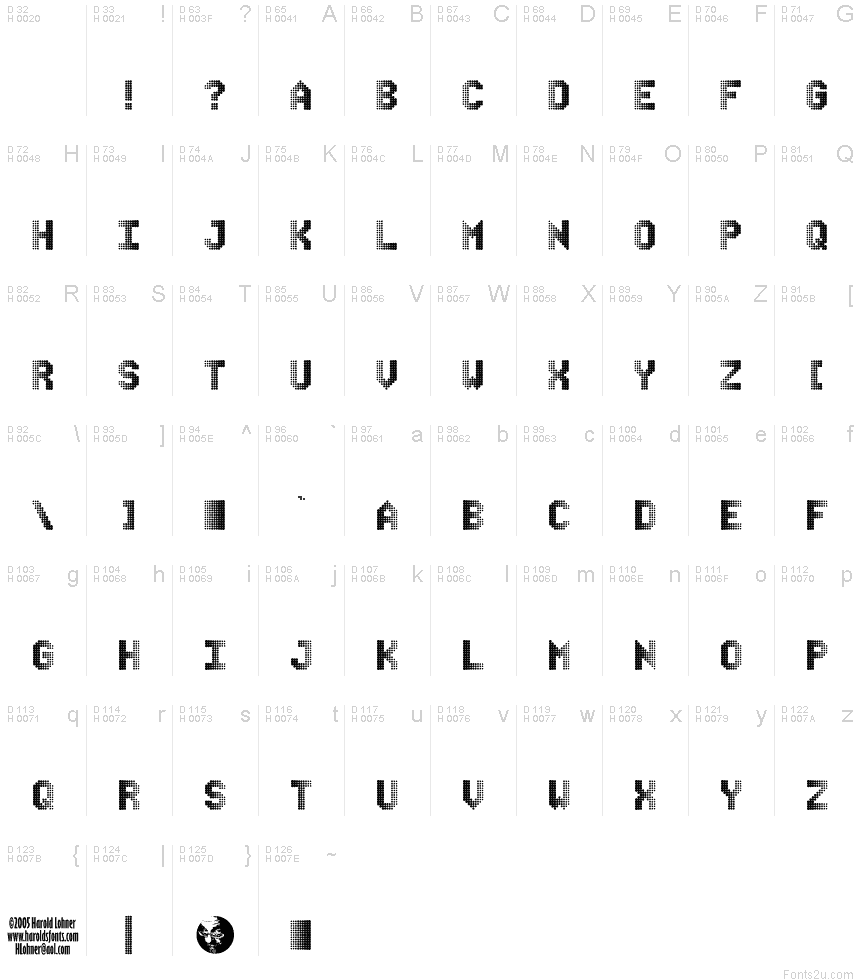
Chaser font by Harold Lohner is a free digital display typeface that looks like it’s lit by hundreds of tiny bulbs. Each character is built from tight, inky circles that evoke arcade scoreboards, theater marquees, and old-school LED signs. The rhythm of the dots gives headlines a pulsing, animated feel, even on a static page.
Using Chaser, your titles snap on screen for event posters, concert flyers, nightclub branding, retro tech packaging, gaming overlays, and digital-themed social graphics. This free font shines at large sizes, where the dot grid becomes a bold texture. Pair it with a clean geometric sans in smaller text to keep the message bright, legible, and wired with energy.